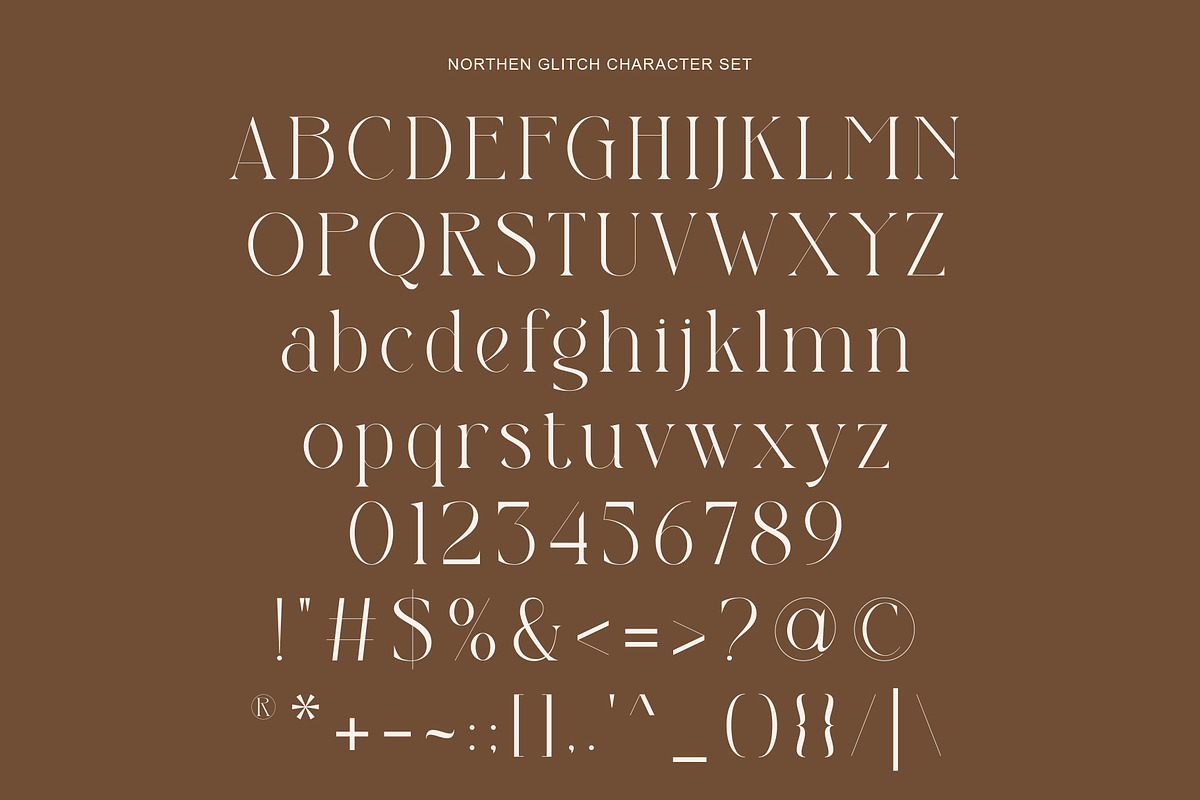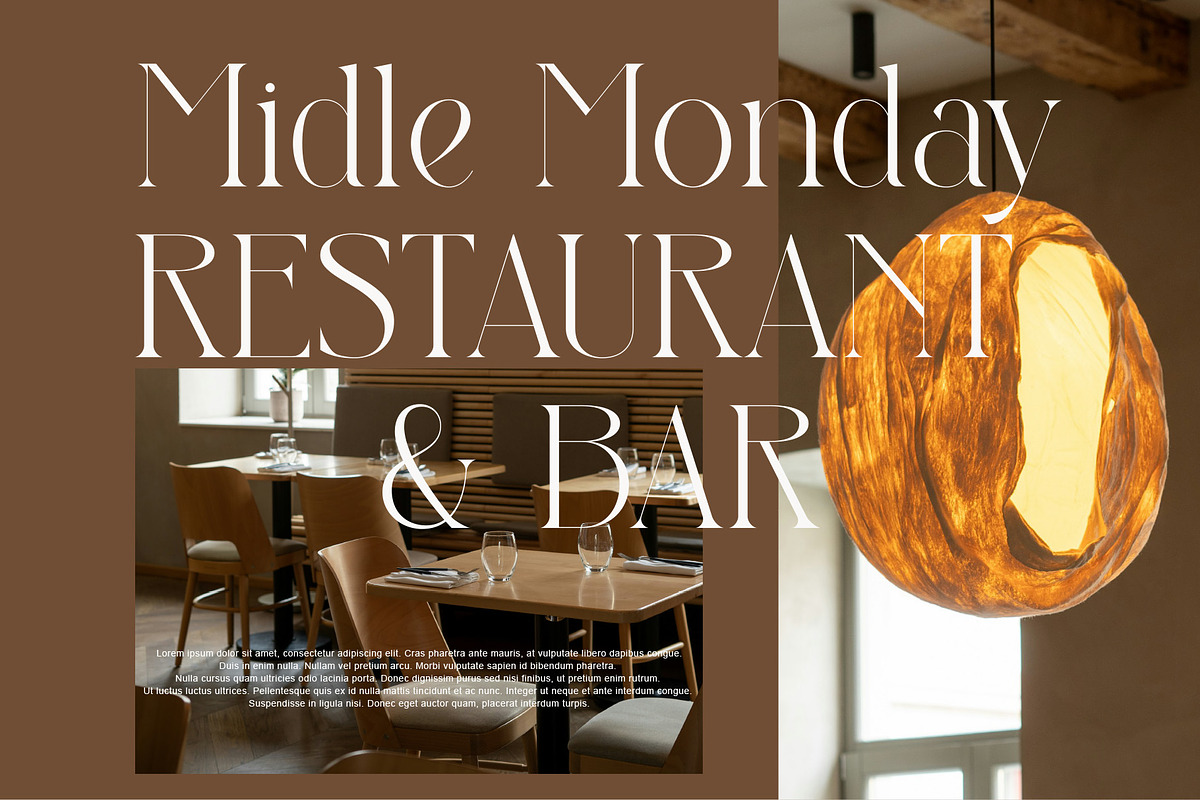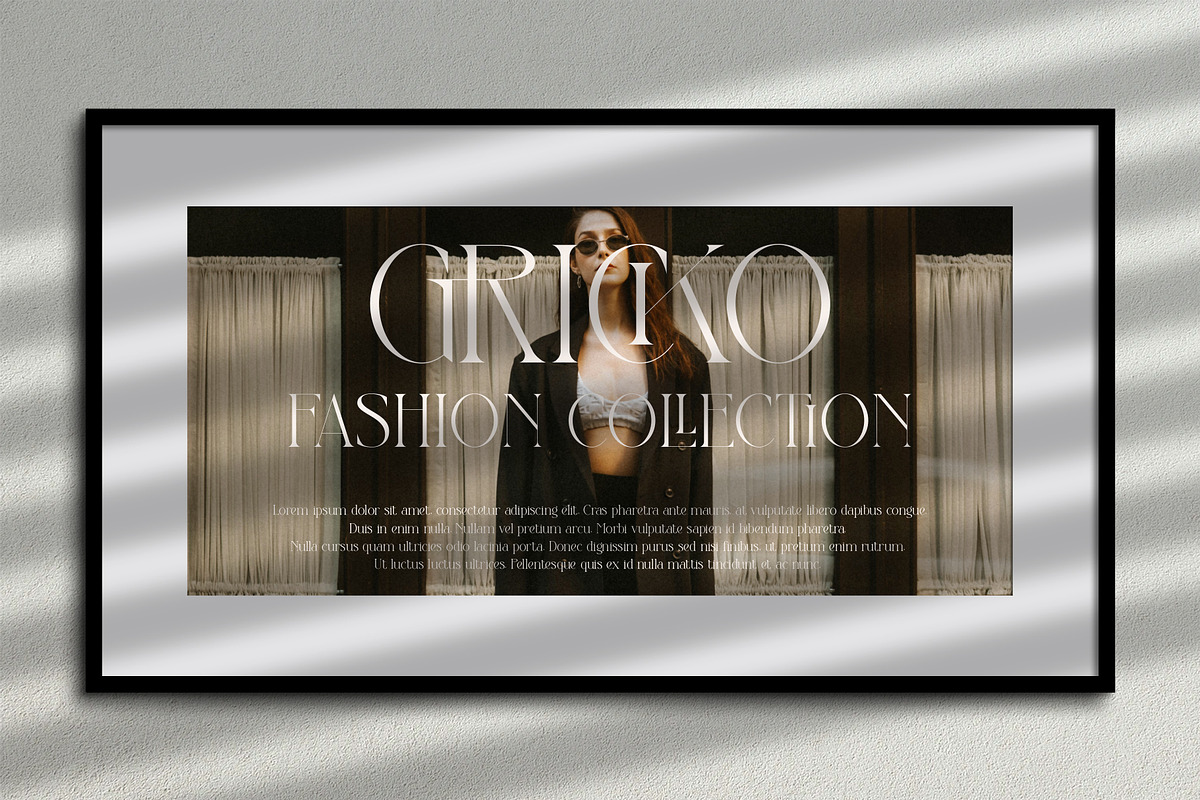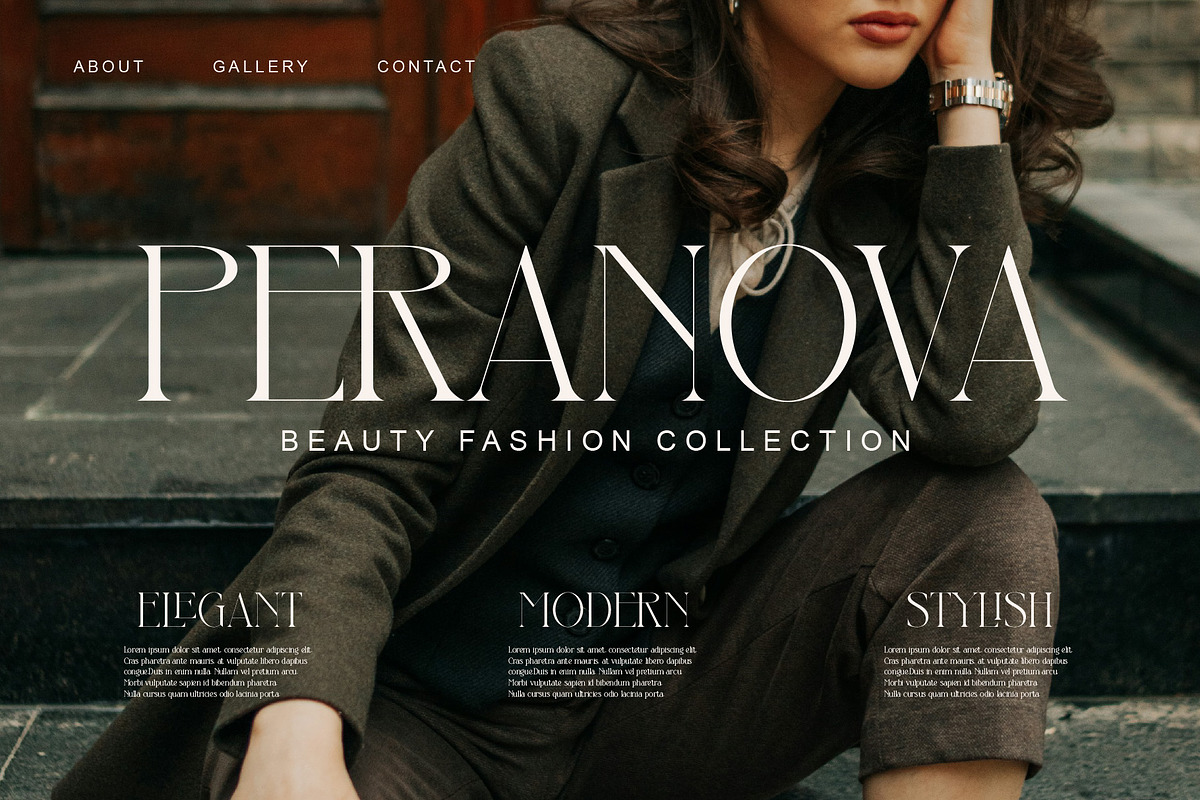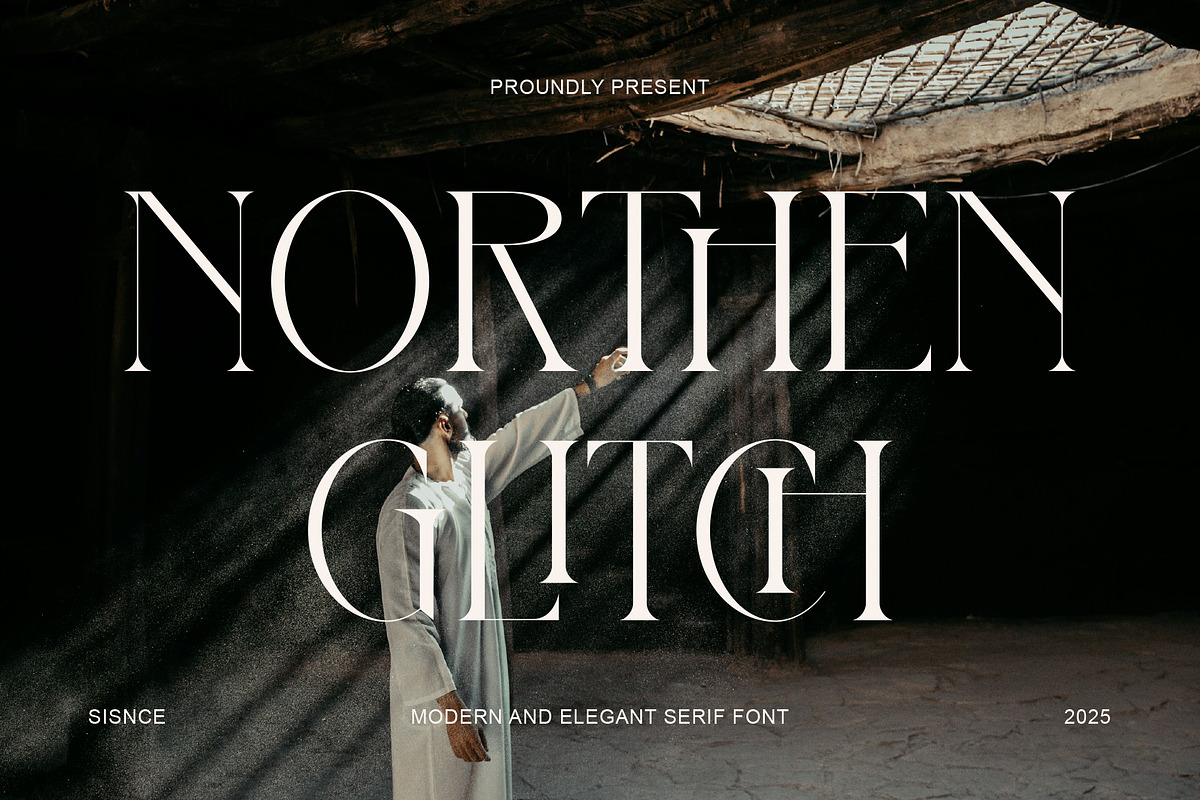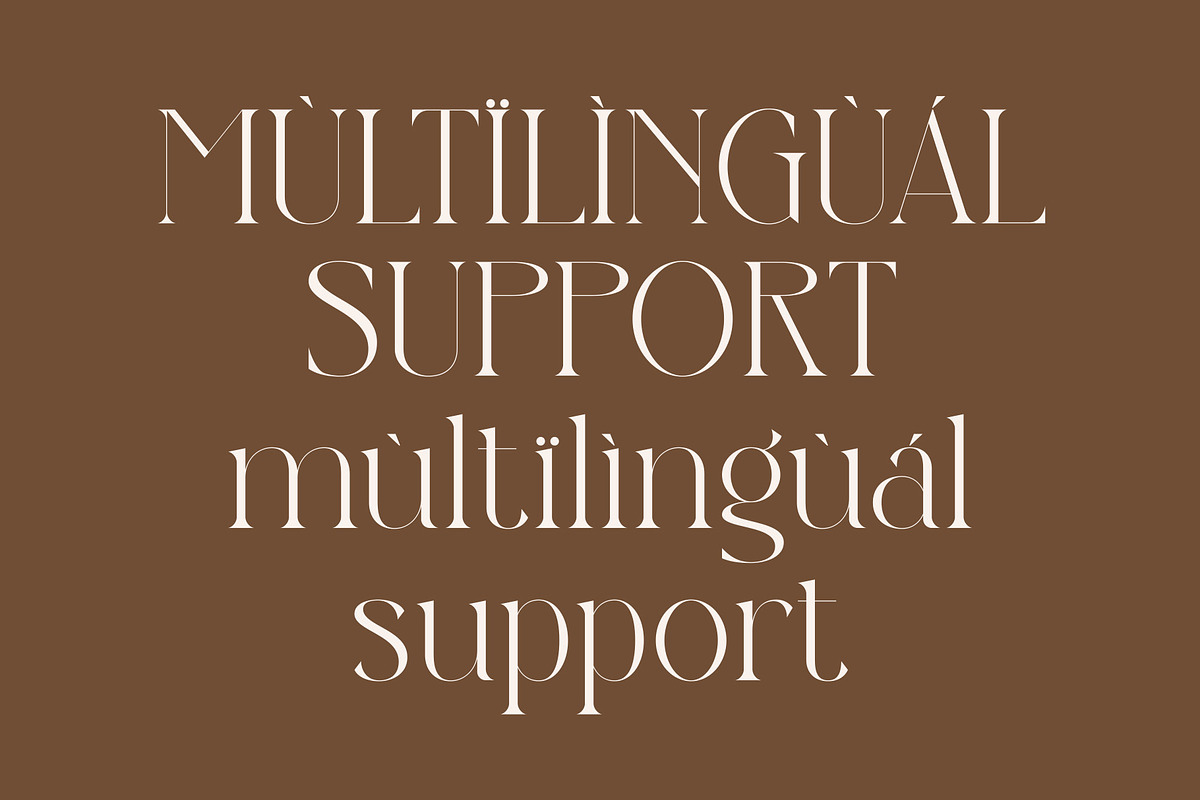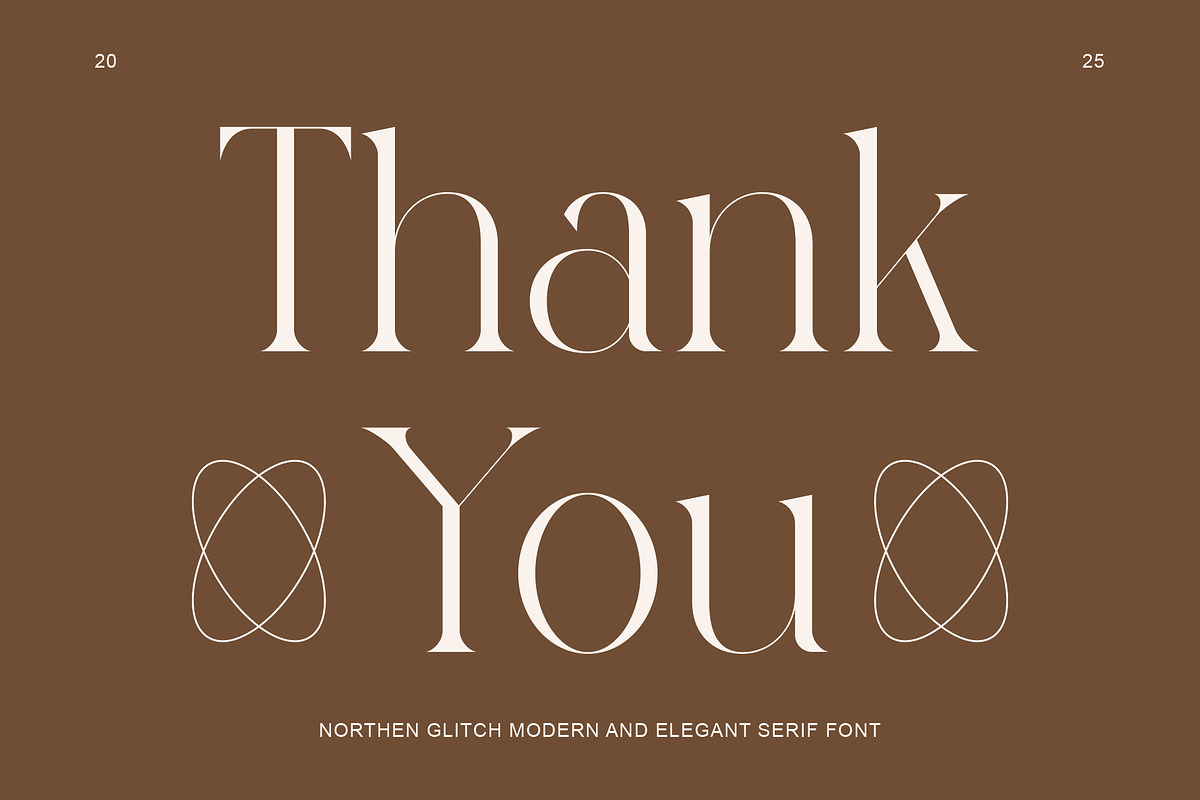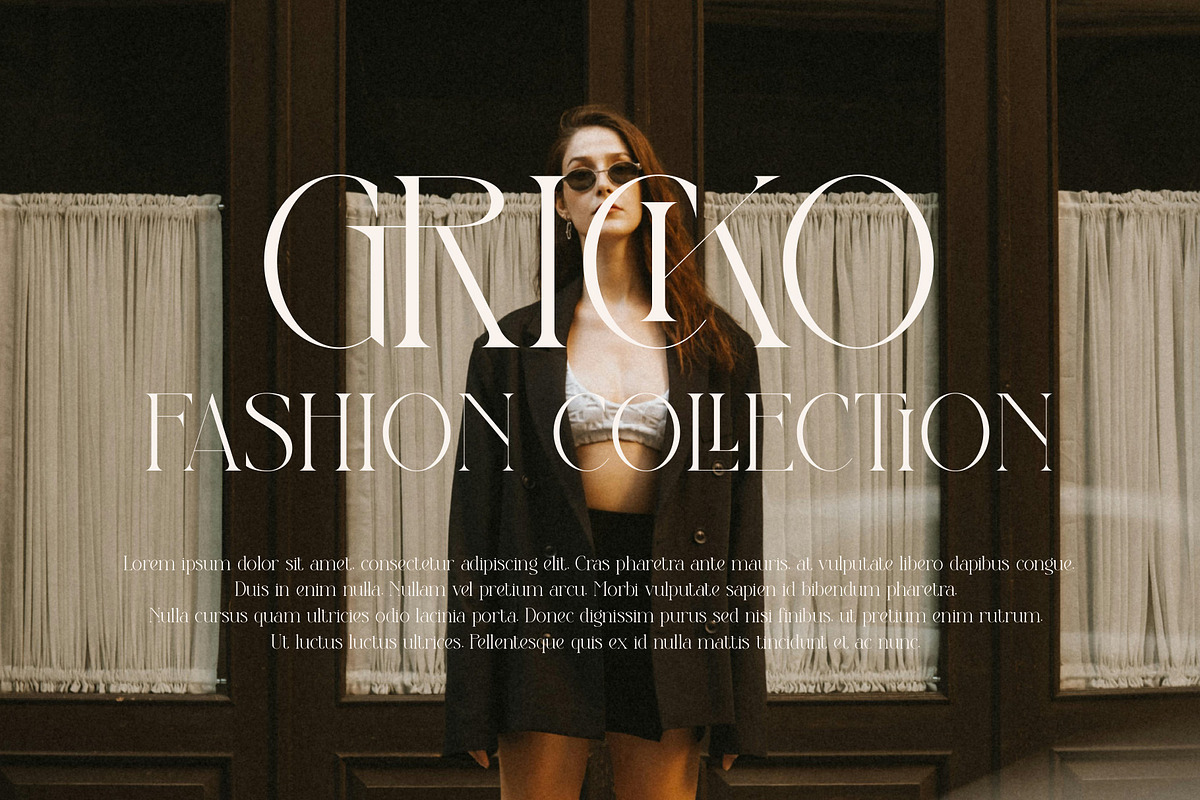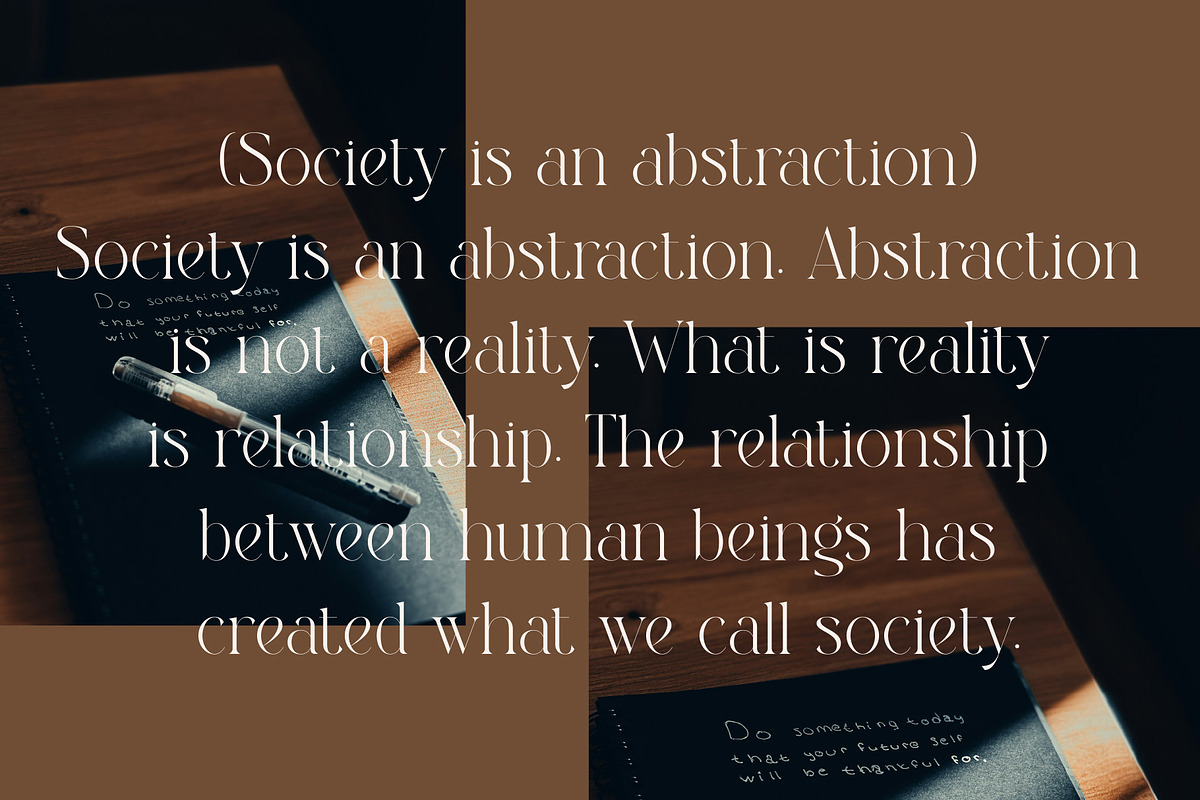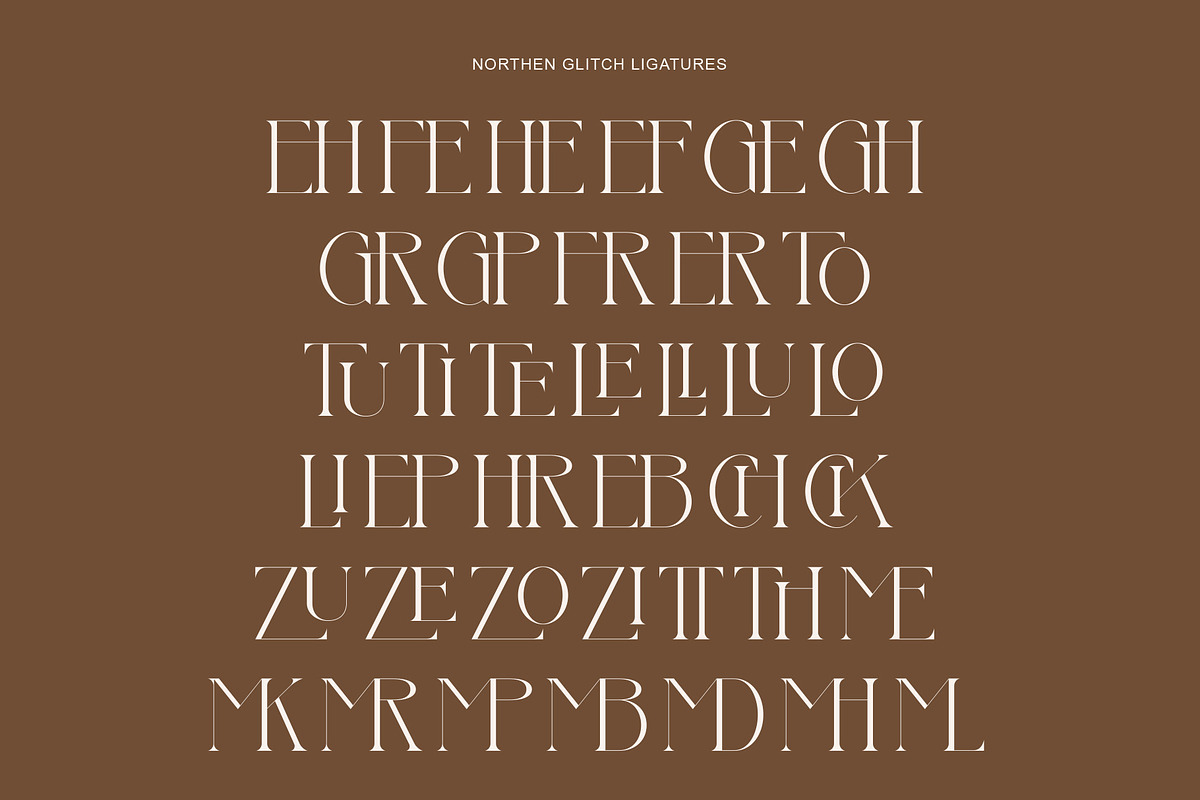
Northen Glitch
Introducing *Northen Glitch An elegant, beautiful and modern serif typeface. With its modern and minimalist appearance, Northen Glitch brings a luxurious, classy and clean style to your projects such as websites, modern logos, branding identities, social media quotes, wedding stationery, magazines and various other needs!
Northen Glitch displays unique and classy capital letters A to Z and is equipped with alternative letters and unique binding letters so that Northen Glitch is a beautiful font that can be adapted to various projects and jobs that you want.